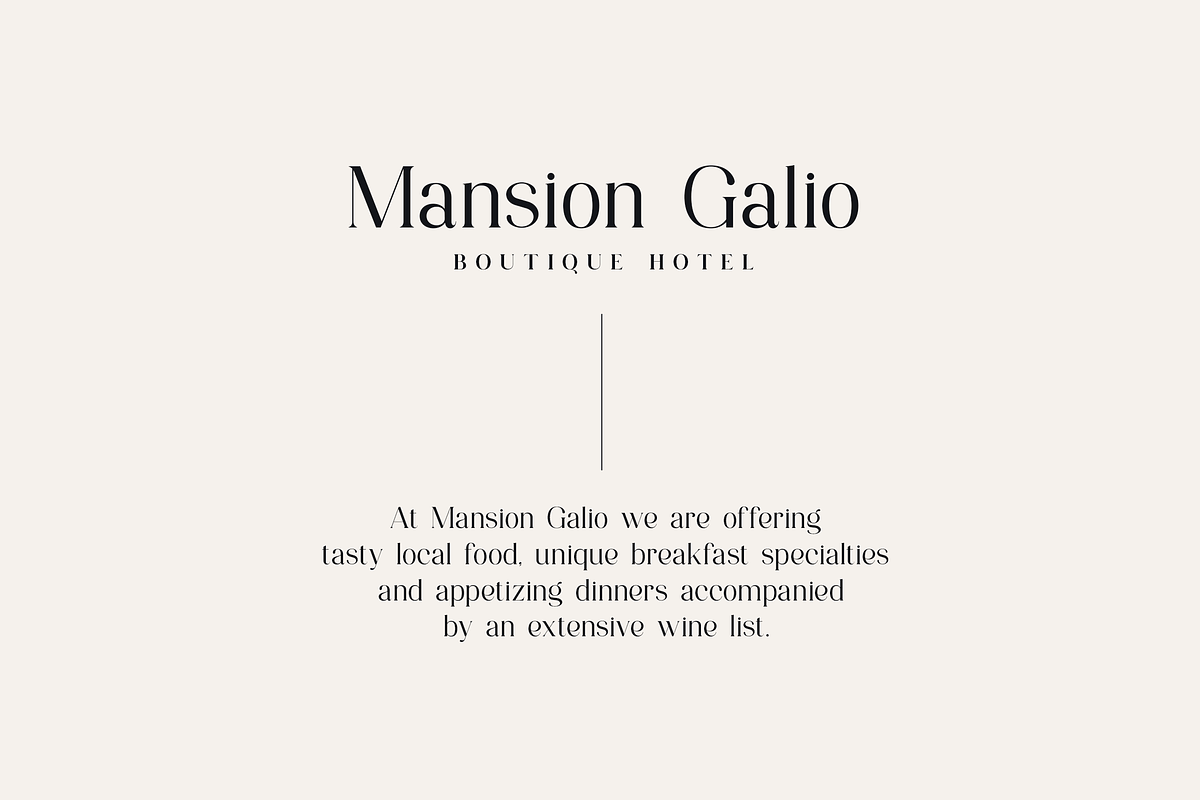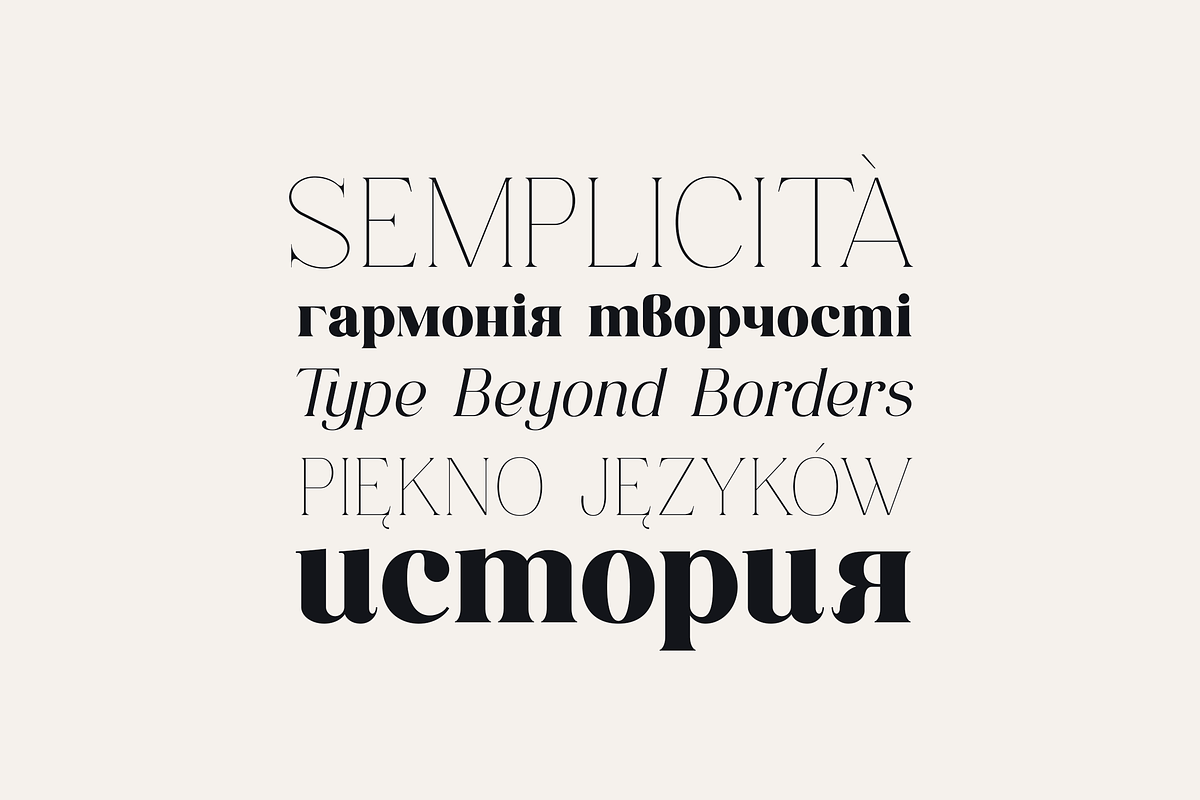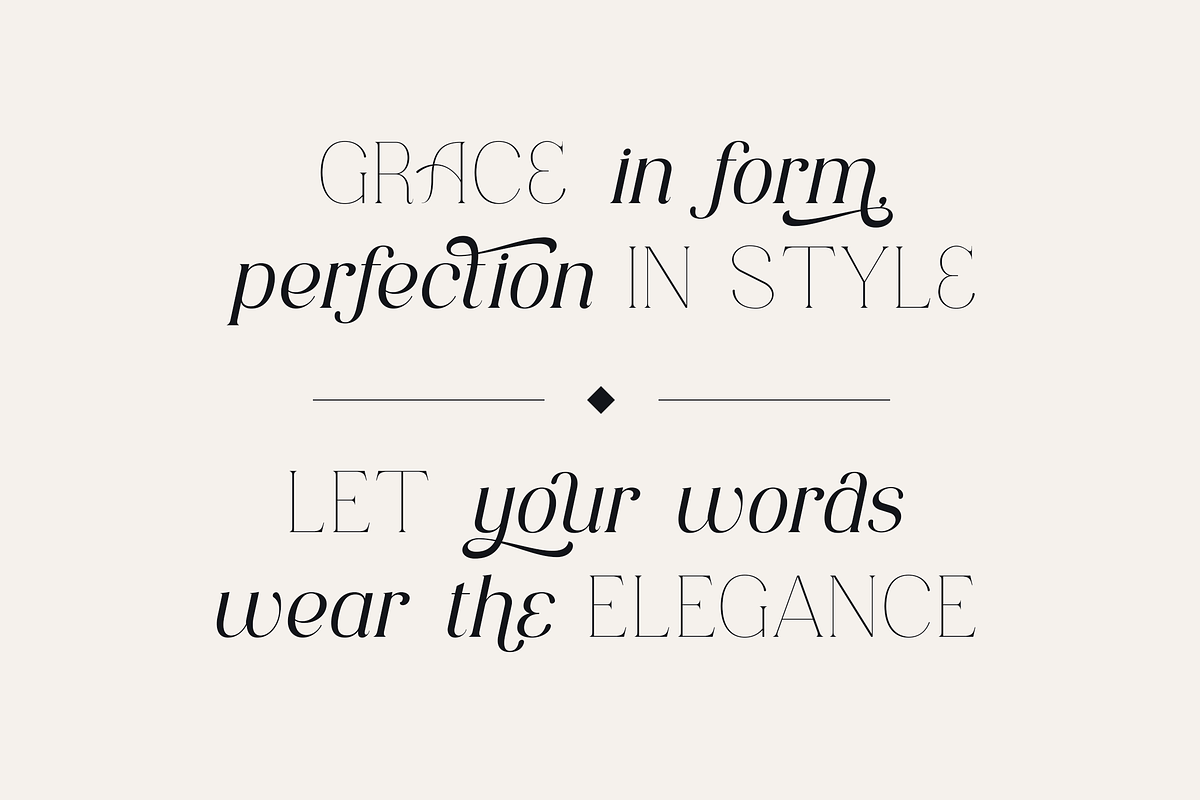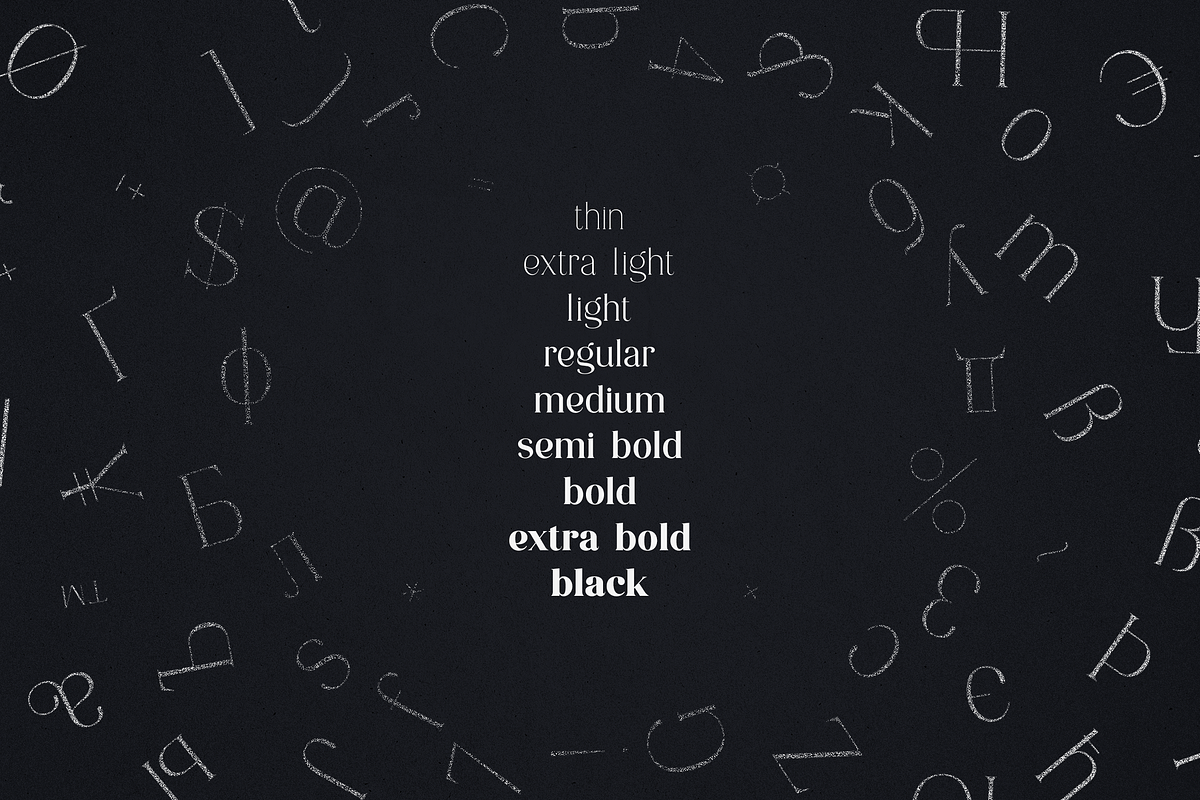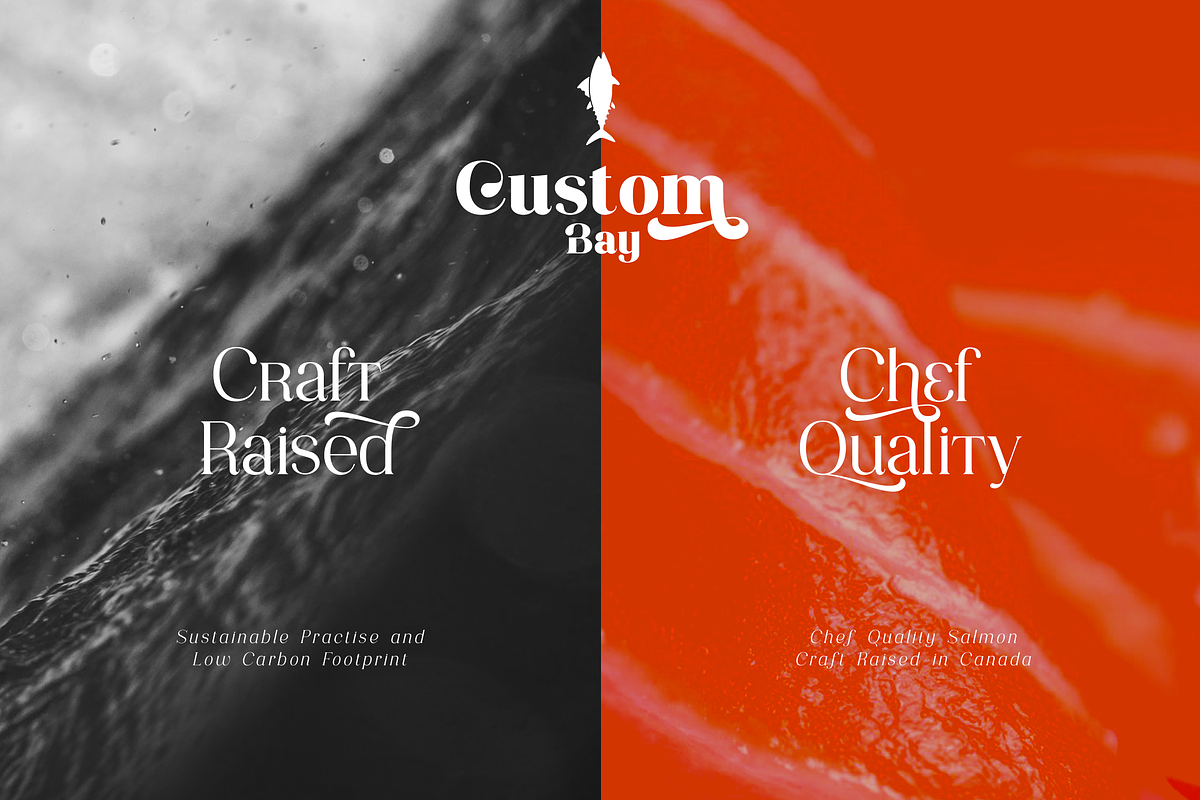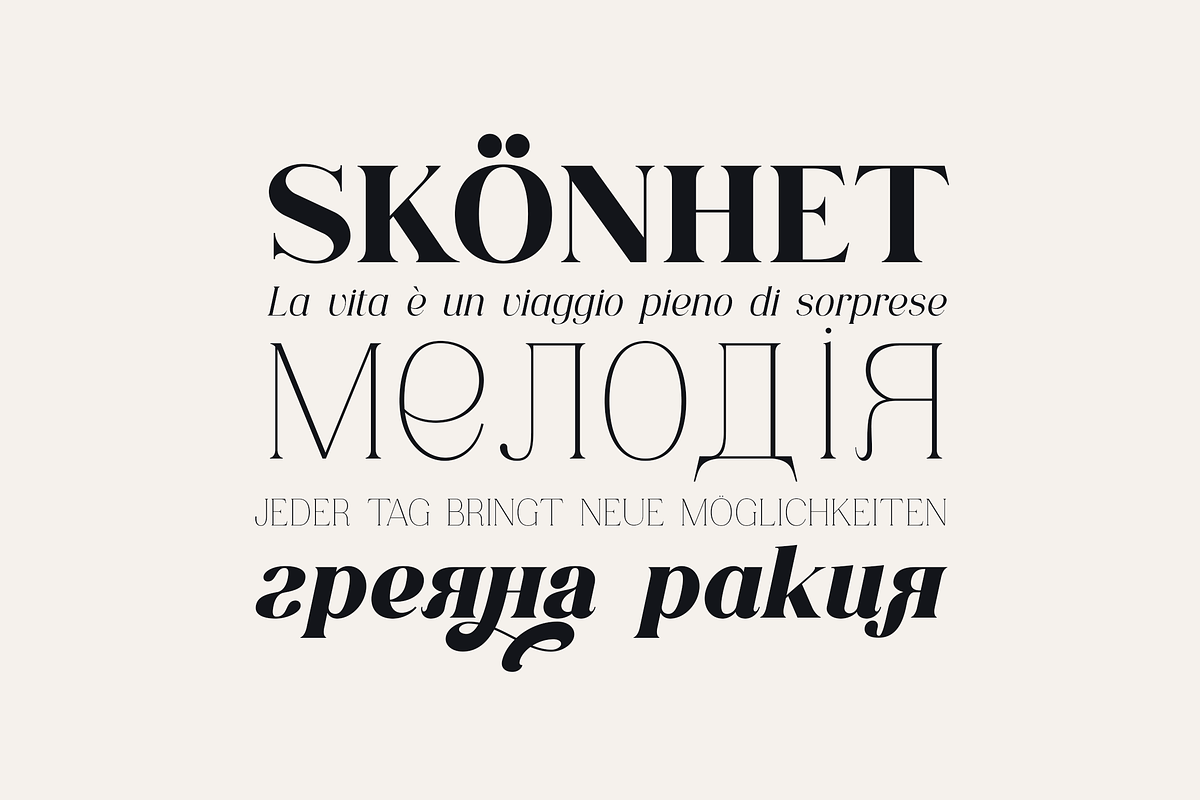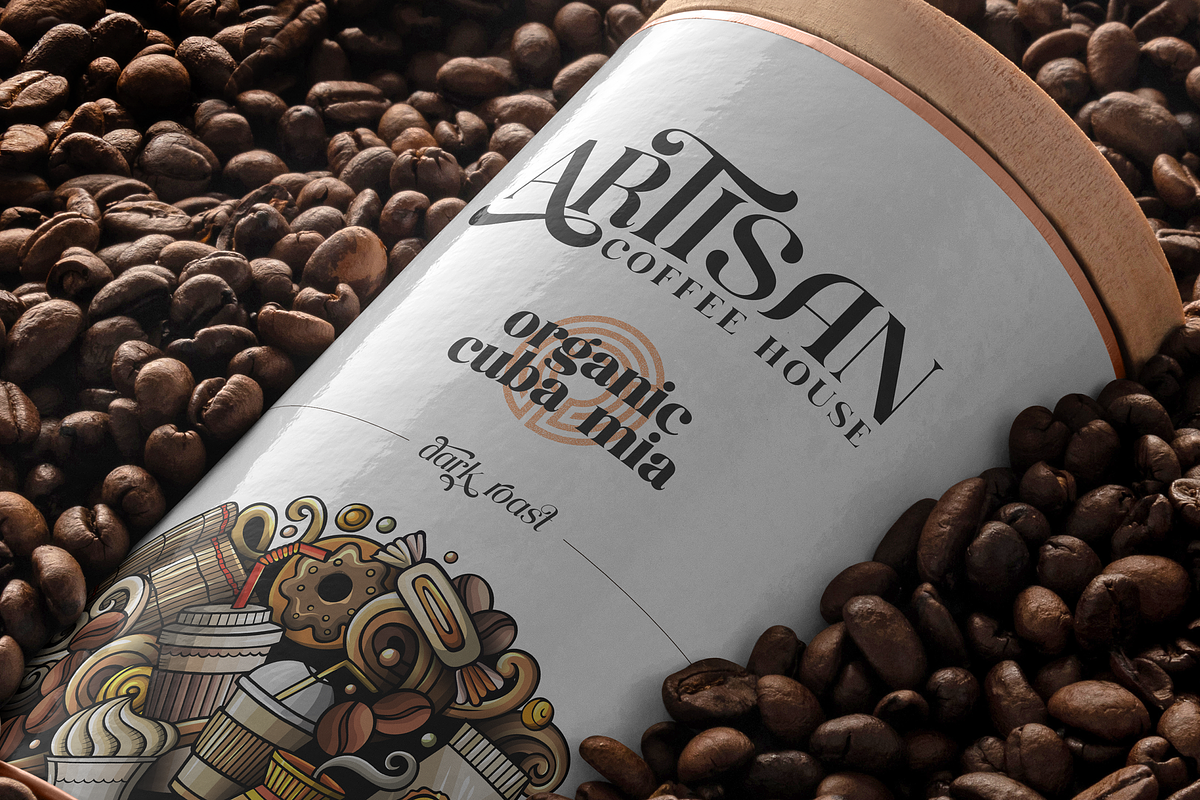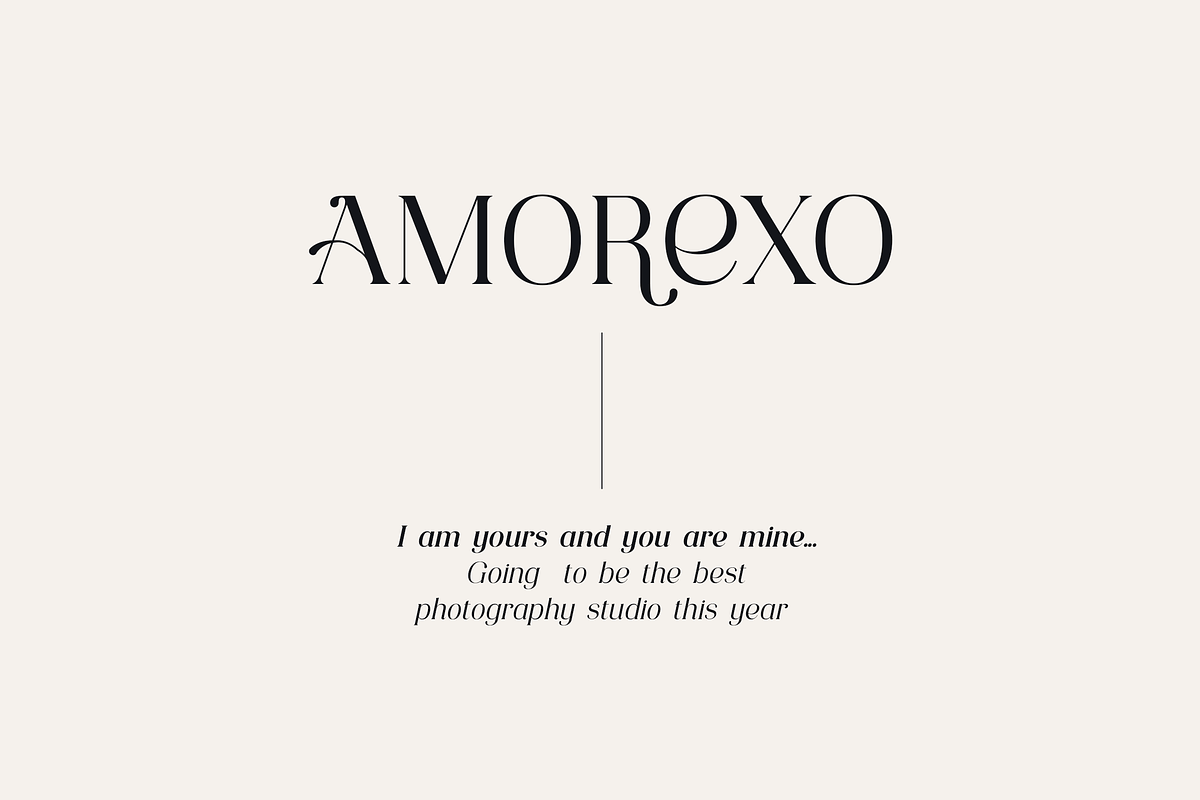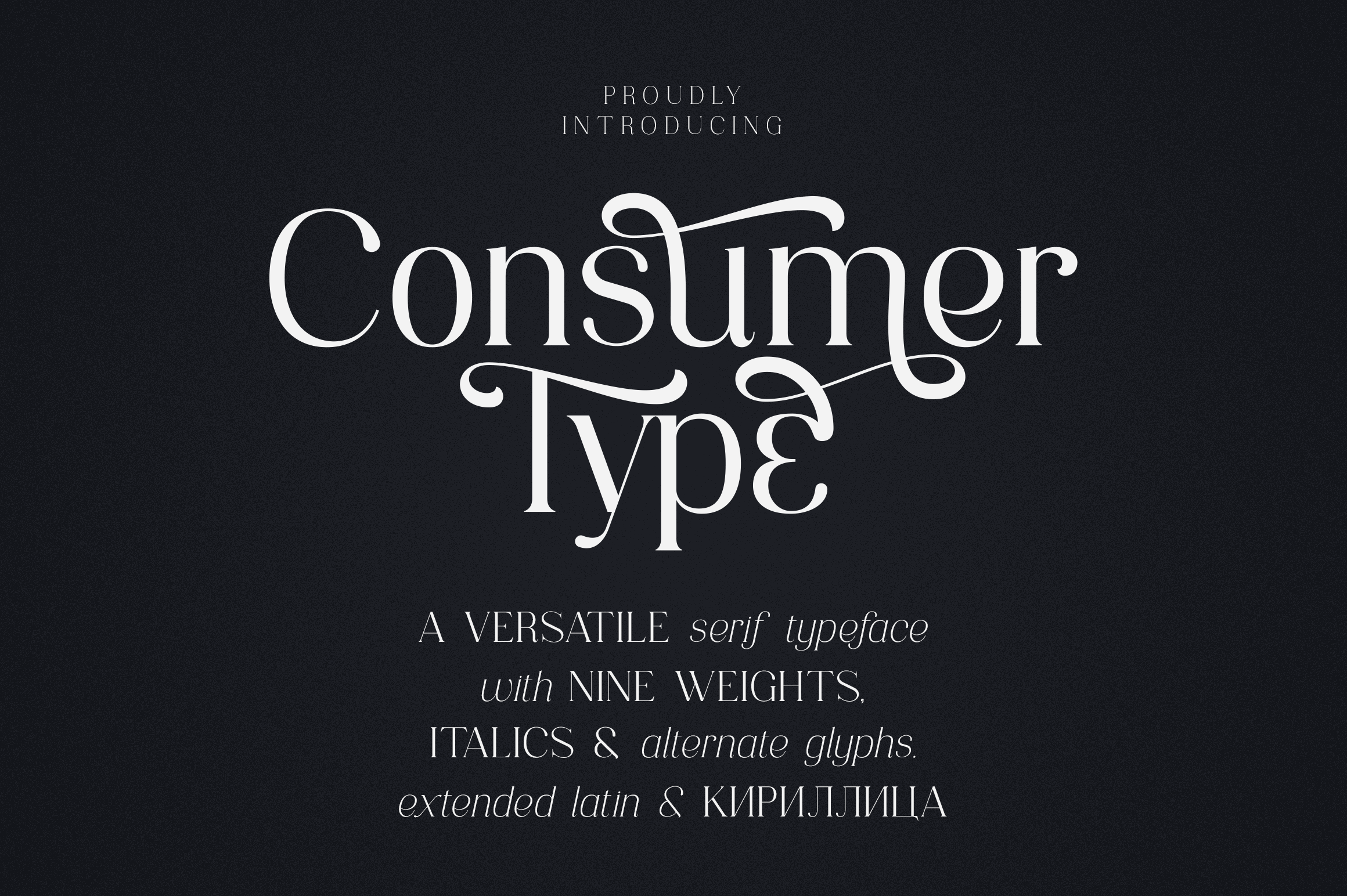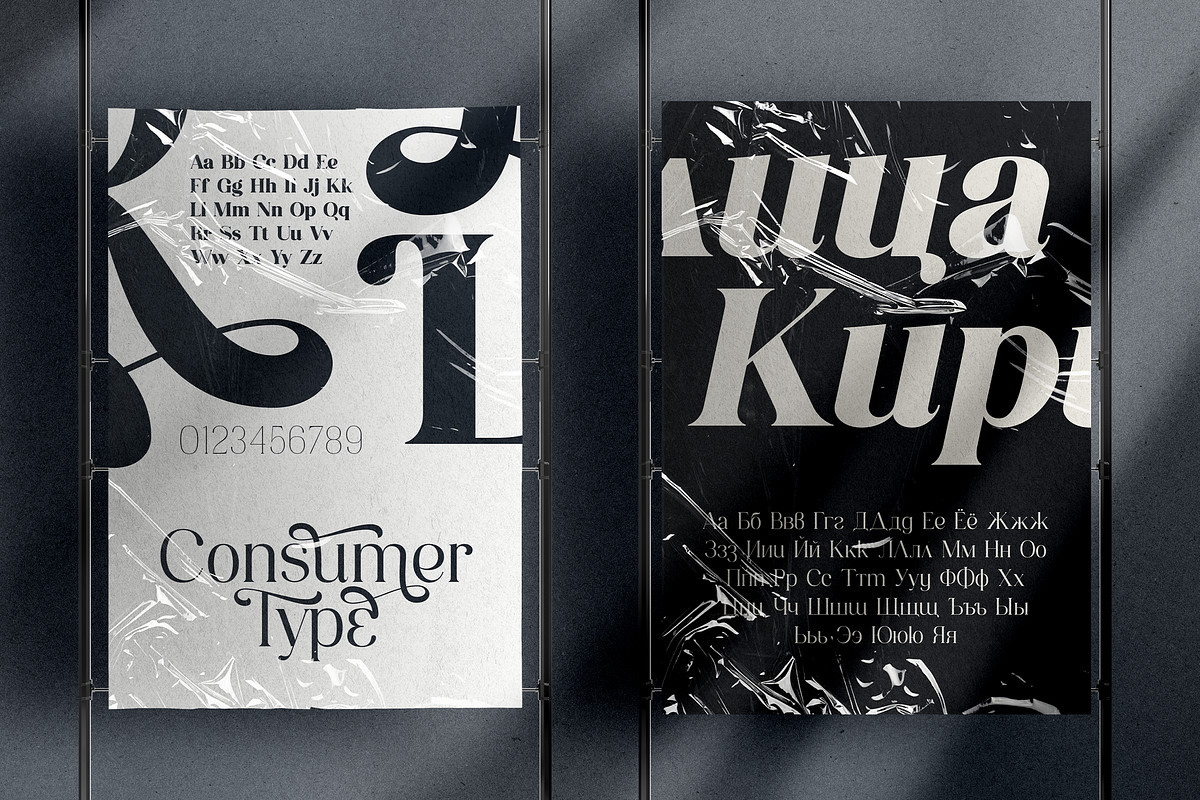
Consumer Type - elegant font family
Discover Consumer Type, an elegant serif typeface family that embodies timeless sophistication. Packed with 9 weights and true italics for every style, this versatile font offers a total of 1561 meticulously crafted glyphs, including alternate characters, extended Latin, Cyrillic, and Bulgarian Cyrillic scripts. Perfect for branding, editorial design, and high-end projects, Consumer Type delivers impeccable style and international support. Elevate your designs with its graceful curves, refined details, and unparalleled versatility.
Language Support : Belarusian, Bosnian, Bulgarian, Chechen, Macedonian, Russian, Serbian, Afrikaans, Albanian, Asu, Basque, Bemba, Bena, Breton, Chiga, Colognian, Cornish, Czech, Danish, Dutch, Embu, English, Estronian, Faroese, Filipino, Finnish, French, Friulian, Galician, Ganda, German, Gusii, Hungarian, Indonesian, Irish, Italian, Jola-Fonyi, Kabuverdianu, Kalenjin, Kamba, Kikuyu, Kinyarwadna, Litvian, Lithuanian, Lower Sorbian, Luo, Luxembourish, Luyia, Machame, Makhuwa-Meetoo, Makonde, Malagasy, Maltese, Manx, Meru, Morisyen, North Ndebele, Norwegian Bokm ål, Norwegian Nynorsk, Nyankole, Ormo, Polish, Portuguese, Quechua, Romanian, Romansh, Rombo, Rundi, Rwa, Samburu, Sango, Sangu, Scottish Gaelic, Sena, Shambala, Shona, Slovak, Soga, Somali, Spanish, Swahili, Swedish, Swiss German, Taita, Teso, Turkish, Ukrainian, Upper Sorbian, Uzbek (Latin), Volap ük, Vunjo, Walser, Welsh, Western Frisian, Zulu